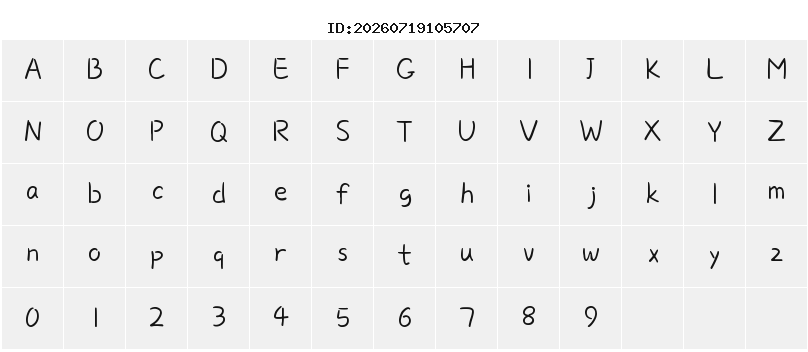
• Font Name: YEFONTRuanMengOuBaoTi 標準
• Full Font Name: 也字工廠軟萌歐包體 標準
• Manufacturer: 也字工厂
About YEFONTRuanMengOuBaoTi 標準.TTF
YEFONTRuanMengOuBaoTi 標準.TTF is a modern, elegant sans-serif font designed for ultimate readability and visual harmony. Perfect for branding, headlines, web design, and print materials.